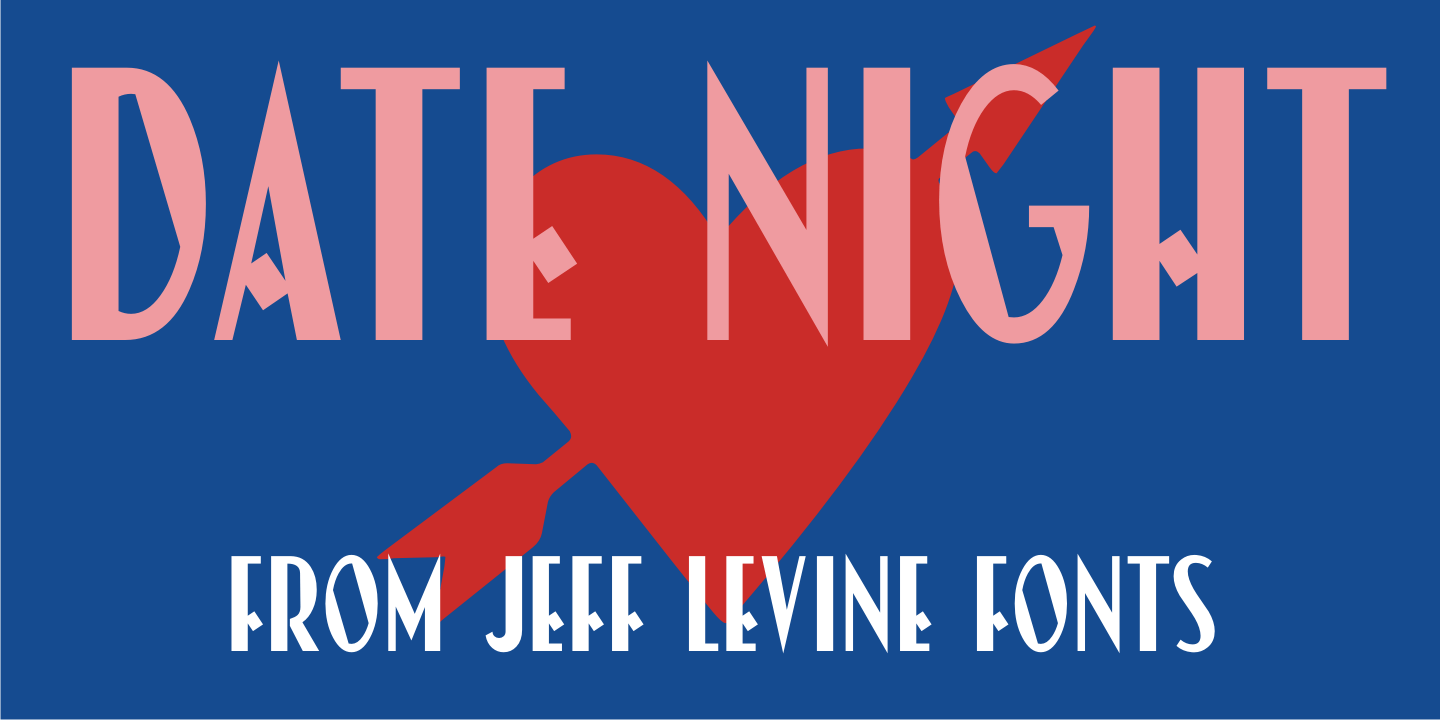
Date Night
The opening title card for 1931's pre-code movie drama 'Other Men's Women” (with Mary Astor, Regis Toomey, James Cagney and Joan Blondell amongst the cast members) is the basis for the Art Deco type face Date Night JNL.
Date Night JNL Regular by Jeff Levine Fonts